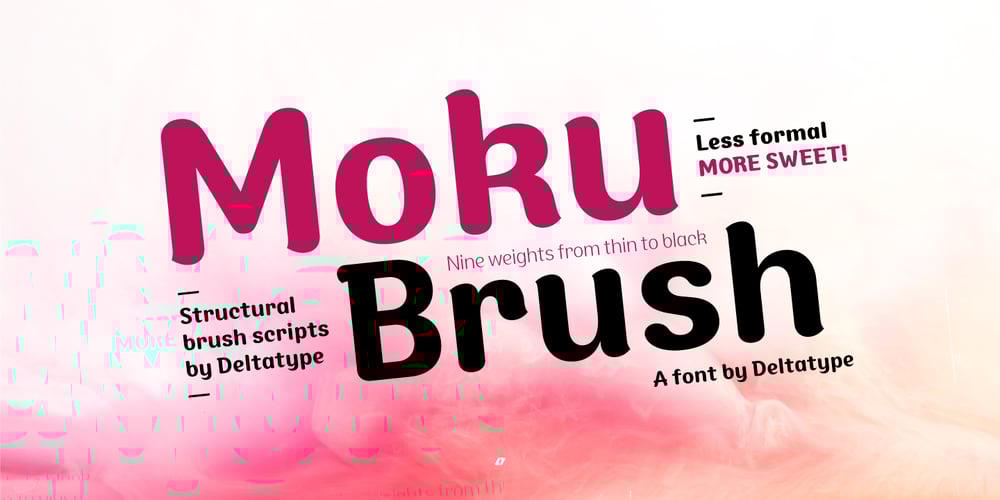
Moku Brush Font Family was designed by Kwanchai Akkaratammagul and published by Deltatype. Moku Brush contains 9 styles and family package options. Moku Brush is a structural brush script inspired from handwriting with brush, with straight letterform you will get less formal but more sweet! Moku Brush come with nine weights, so you can use as body text or even better with headline. With nine variations, you can use this font in different sizes with different weights, you will get better balance when do type setup.